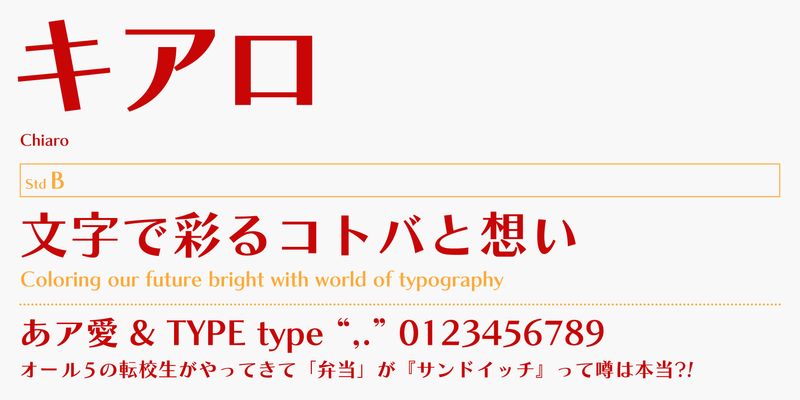
FOT-Chiaro Std Font Free Download is a modern sans-serif typeface that strikes a perfect balance between elegance and readability. With its clean lines and minimalist design, it’s ideal for branding, corporate communications, editorial layouts, and UI design. The font’s subtle sophistication makes it versatile enough for both print and digital applications, while its precise structure ensures clarity at all sizes.
Supporting both Japanese and Latin scripts, FOT-Chiaro Std is a great fit for multilingual projects. It integrates smoothly with professional tools like Adobe Creative Suite, Canva, and web design platforms, helping designers maintain visual consistency across diverse media.